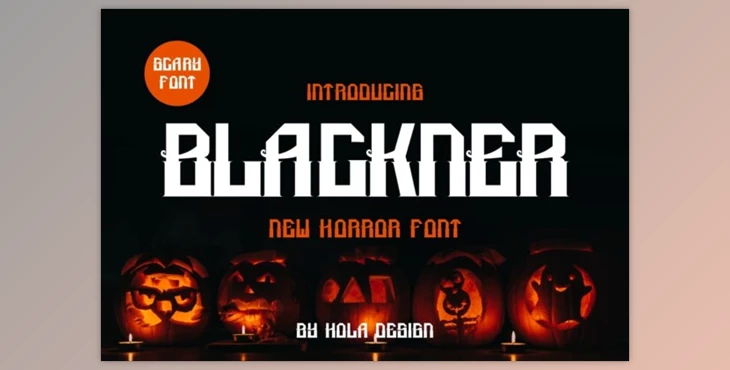
Blackner Font: Blackner Font stands out with its unique and distinctive style, making it the perfect choice for various design applications. Whether you're working on labeling, movie scenes, posters, movie titles, gigs, album covers, logos, or any other creative project, this font is ready to enhance your design with its individuality.